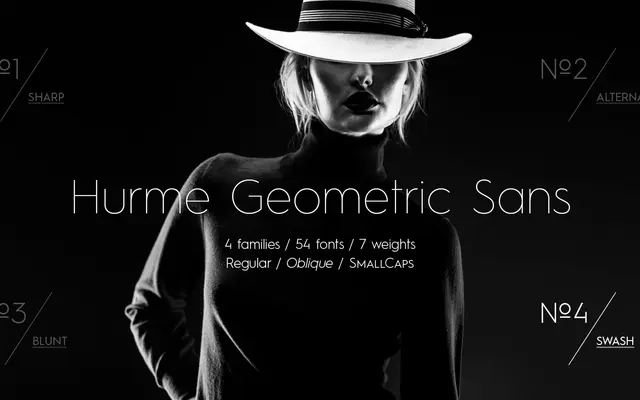
Hurme Geometric Sans №4
A seven-weight geometric sans with true small caps and matching obliques, part of Hurme Design's four-family Geometric Sans series.
Fourteen styles span seven weights from Hairline to Black, each paired with an oblique, and the family includes true small caps throughout. OpenType alternates give designers room to adjust the face to specific contexts. The extensive language support covers a wide range of Latin-based scripts, making it a practical choice for multilingual European and international work.
The typeface is explicitly named and styled as a geometric sans, with uniform stroke widths and clean construction typical of the genre. It sits within Hurme Design's broader Geometric Sans family series.